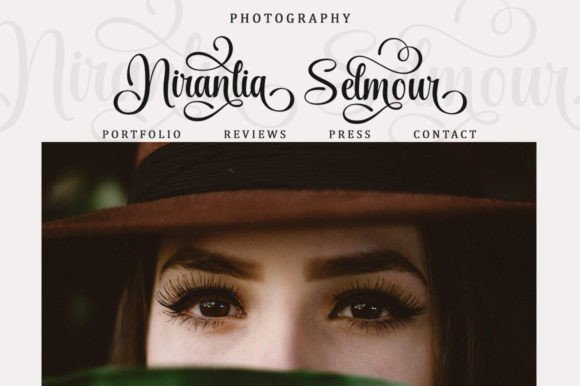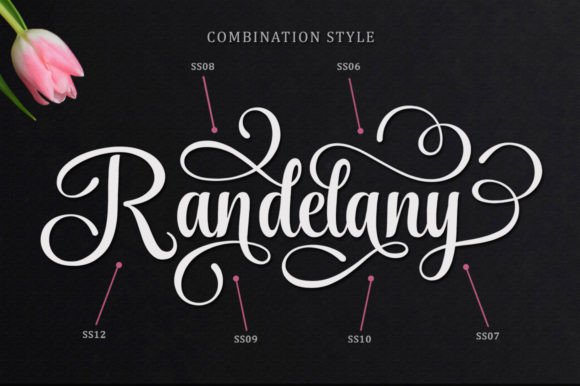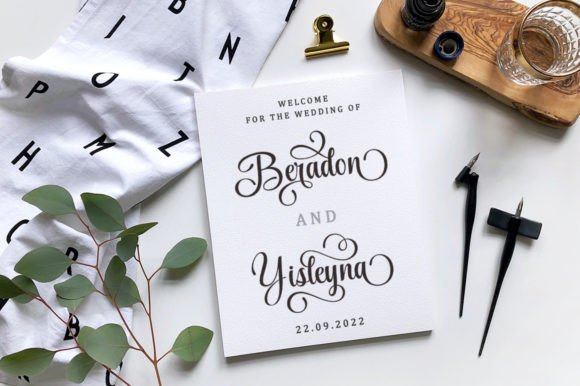
Introduction to Randelany Font
As designers, we’ve all been there – staring at a blank canvas, trying to bring our creative vision to life. And then, it hits us – the perfect font can make all the difference. For me, that moment came when I discovered the Randelany Font, a modern and elegant script font that elevates any design project to new heights.
With its perfect balance of thickness and variation, Randelany Font is a game-changer for designers. Whether you’re working on a high-quality brochure, a website with a transparent background, or a creative project that requires a unique touch, this font is sure to impress. As a valuable design resource, Randelany Font is now available for free download, making it accessible to designers of all levels.
So, let’s dive into the world of Randelany Font and explore its features, benefits, and how it can take your design projects to the next level.
Key Features of Randelany Font
- High-quality design: The Randelany Font is designed to meet the needs of creative projects, offering a unique and stylish look.
- Transparent background: This feature allows for seamless integration with any background, making it a valuable design resource.
- Unique characteristics: The Randelany Font features a distinctive and modern design, with a range of creative options for designers to experiment with.
- Perfect for creative projects: The Randelany Font is ideal for use in creative projects, such as graphic design, typography, and digital art.
Honest Review: Randelany Font
As a designer, I’m always on the lookout for high-quality design resources to enhance my creative projects. The Randelany Font caught my attention, and I decided to give it a try. Here’s my honest review.
- ✨ Unique and modern design style that adds a touch of sophistication to any project
- ✨ High-quality font that’s perfect for creative projects, from brochures to posters
- ⚠️ Limited font styles available, which might not be ideal for projects that require a range of font options
- ⚠️ Transparent background might not work well with all design elements, requiring extra design adjustments
Overall, I’m impressed with the Randelany Font’s design and quality. It’s a great addition to any designer’s toolkit, especially for free. While it has its limitations, I’d still recommend it for creative projects that require a modern and sophisticated look.
Tips for Getting the Most Out of Randelany Font
For the best results, use Randelany Font in conjunction with high-quality images and graphics. Experiment with different font sizes, colors, and styles to create visually appealing designs. You can also use Randelany Font in combination with other design elements, such as shapes and icons, to create unique and creative projects.
Randelany Font is suitable for a variety of design projects, including business cards, brochures, posters, and presentations. Its transparent background and high-quality design make it an excellent choice for creative projects that require a professional touch.
Alternatives to Randelany Font
The Alex Brush Font is a high-quality, elegant script font that features a transparent background, making it perfect for creative projects that require a touch of sophistication. It’s ideal for designing wedding invitations, menus, or other formal documents. Compared to Randelany Font, Alex Brush Font has a more refined and classic look, making it suitable for formal events and high-end design projects.
Is the Randelany Font suitable for a transparent background design project?
Yes, the Randelany Font features a transparent background, making it an ideal choice for creative projects that require a high level of design flexibility. With its transparent background, you can easily combine the font with other design elements, such as images or shapes, to create a unique and eye-catching visual effect.